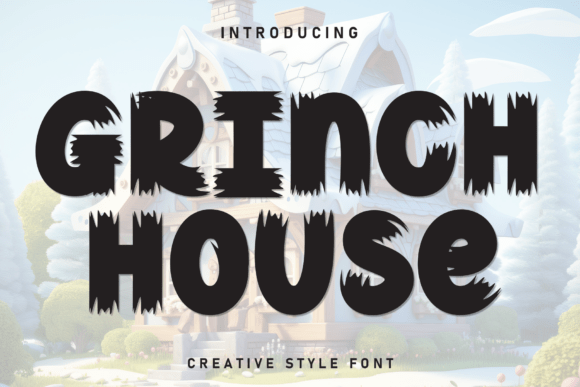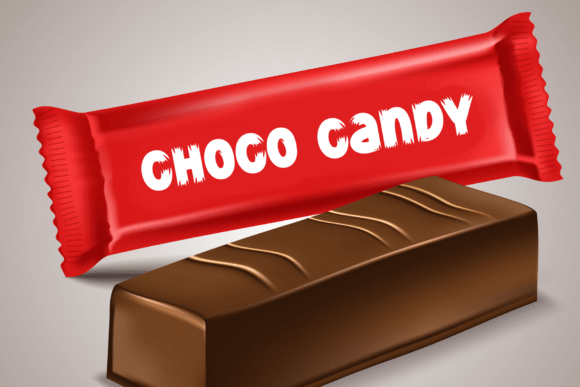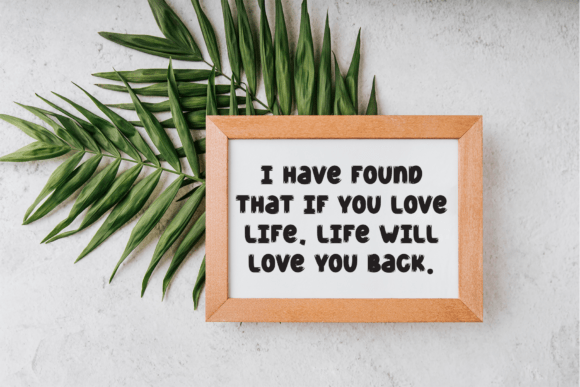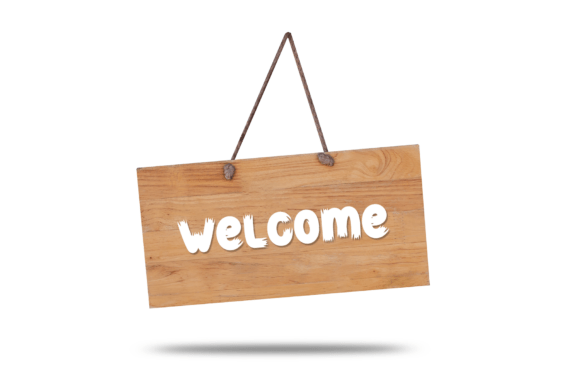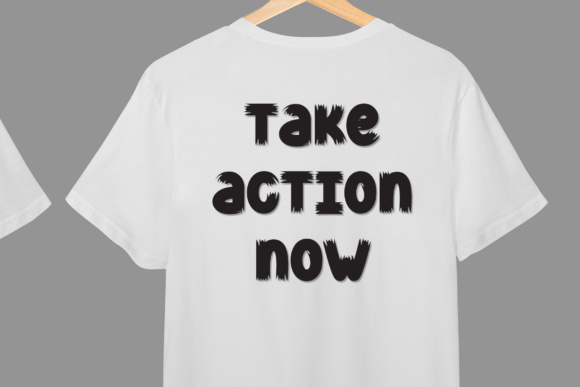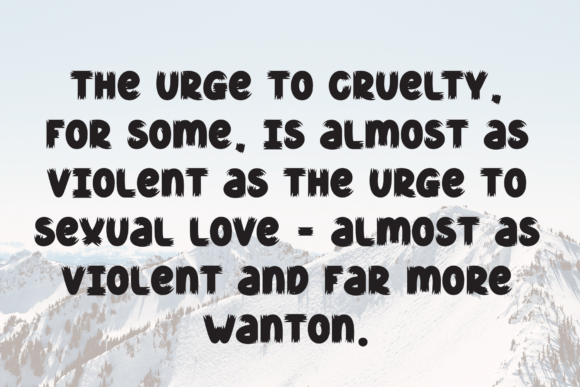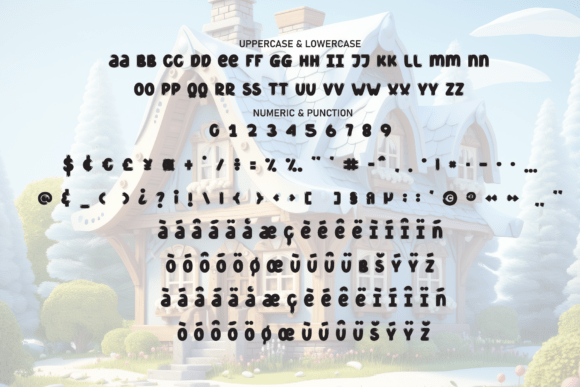
Adding a Pinch of Whimsy to Your Designs
Have you ever stared at a blank page, trying to come up with the perfect idea for a design project, only to have a burst of creativity strike when you least expect it? For many designers, it’s those unexpected moments that lead to the most magical creations. And that’s exactly what inspired us to introduce the delightful Grinch House Font.
This charming handwritten display font is more than just a pretty face – it’s the secret ingredient that will add a touch of warmth and personality to your designs. Whether you’re crafting whimsical wedding invitations, endearing greeting cards, or simply looking to add a dash of fun to your next project, the Grinch House Font is the perfect solution. As a designer, you’ll appreciate the versatility and charm of this font, which is sure to bring a smile to the faces of your clients and their audience.
Key Features of “Grinch House Font”
- Font Family: Grinch House is a unique, hand-drawn font family designed to resemble a whimsical, grinch-like character’s handwriting.
- Character Count: The font family includes a wide range of characters, including uppercase and lowercase letters, numbers, punctuation, and special characters.
- Unique Characteristics: Grinch House features a distinctive, irregular font style with varying line widths, making each character unique and adding to the font’s charm.
Grinch House Font Review
At first glance, the Grinch House Font seems like a fun and playful addition to any design project. ✨ I appreciate the whimsical feel it brings, making it perfect for holiday-themed designs or anything that needs a touch of grinchy charm. The font’s irregular shapes and bold lines add to its unique character.
However, I’ve noticed a few limitations that might affect its usability. ⚠️ For one, the font is not as legible at smaller sizes, which can make it difficult to read in certain contexts. Additionally, the font’s weight is quite uniform, which can make it harder to create visual hierarchy in designs.
Here are some specific points to consider:
- Legibility: 6/10 (works well at larger sizes, but struggles at smaller sizes)
- Weight variety: 5/10 (uniform weight can make it harder to create visual hierarchy)
- Uniqueness: 8/10 (unique character, but not as versatile as other fonts)
Overall, the Grinch House Font is a fun and quirky addition to any design project, but it may not be the best choice for projects that require high legibility or a wide range of font weights. ✨ With some careful consideration and planning, it can still be a great fit for the right project.
Practical Application Guide: Grinch House Font
For best results, use the Grinch House Font for titles and headings to create a striking contrast with other text elements.
For best results, use the Grinch House Font in bold or italic styles to add emphasis to your text.
For best results, use the Grinch House Font in headings and titles to create a cohesive visual identity.
The Grinch House Font is ideal for:
Designing holiday-themed materials, such as greeting cards and gift tags.
Creating whimsical and playful branding for children’s products or services.
Adding a touch of nostalgia and retro charm to your designs.
What is the recommended font size for using Grinch House Font?
The recommended font size for Grinch House Font is 12-14 points for body text and 18-24 points for headings. This will ensure that the font is legible and easy to read. However, you can adjust the font size to suit your design needs.